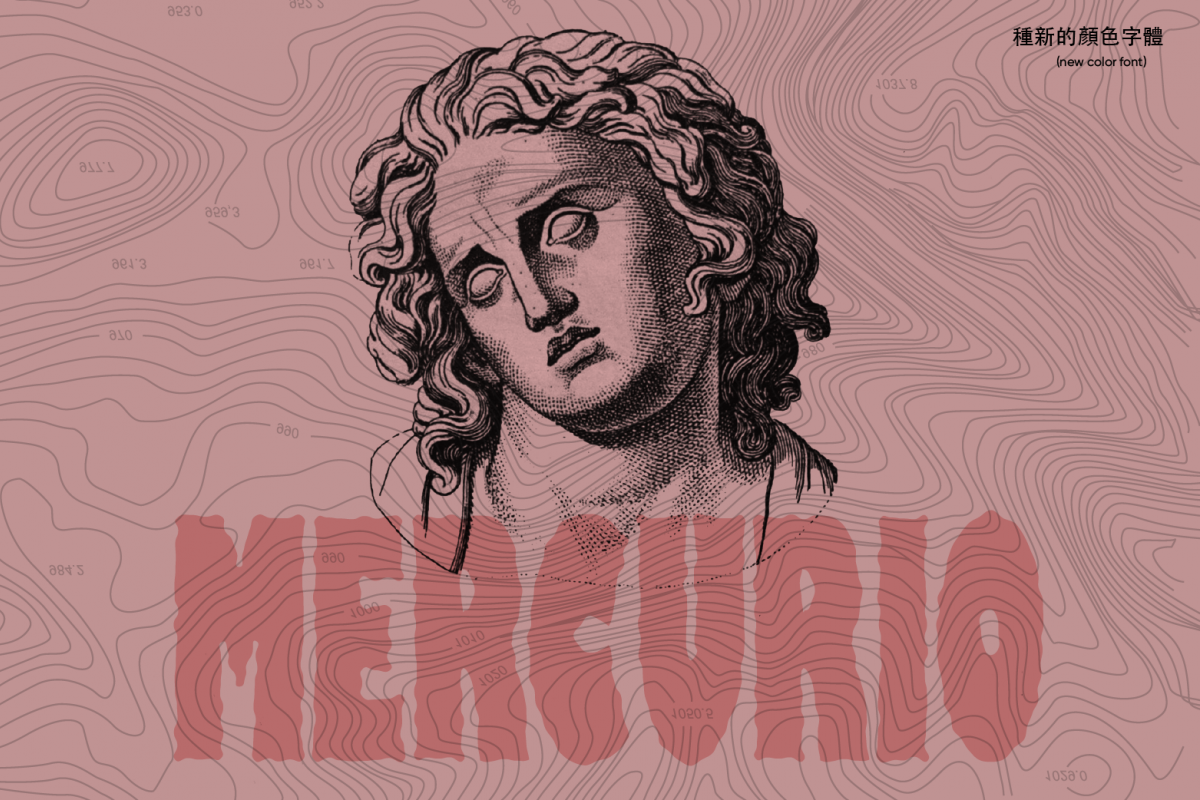
Mercurio Font
Beautiful and modern SVG type with 4 variables (Regular, Light, Line, Color)Includes a OpenType file which means this font will show up only in apps that are compatible with color bitmap fonts, like Adobe Photoshop CC 2017.0. For more information to install this font: https://helpx.adobe.com/typekit/using/ot-svg-color-fonts.htmlIf there is a problem, question, or anything about my product, please sent an email